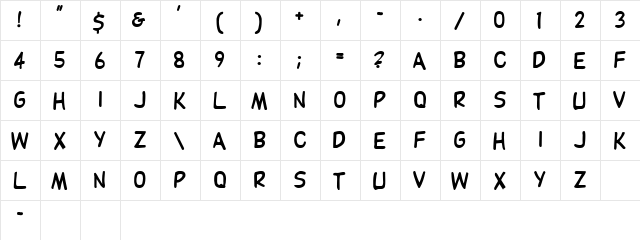
DubuyHeavy Regular Regular
Design Context for DubuyHeavy Regular Typeface
DubuyHeavy Regular takes a measured approach to typography — its balanced proportions and neutral character make it a reliable workhorse for both digital and print work.